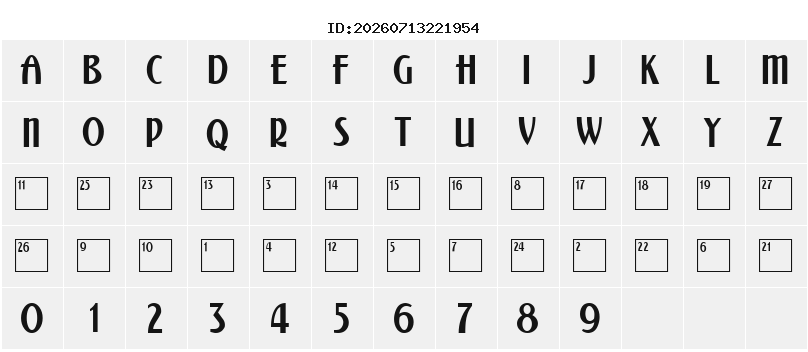
• Font Name: Calendar
Calendar.ttf is a modern, elegant sans-serif font designed for ultimate readability and visual harmony. Perfect for branding, headlines, web design, and print materials.